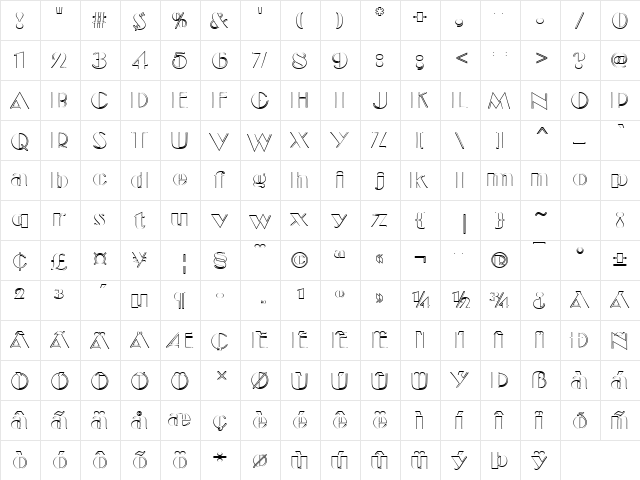
BroadwayOutP Regular
Design Context for BroadwayOutP Typeface
BroadwayOutP is a composed and adaptable typeface that performs quietly and consistently across a wide range of design contexts.